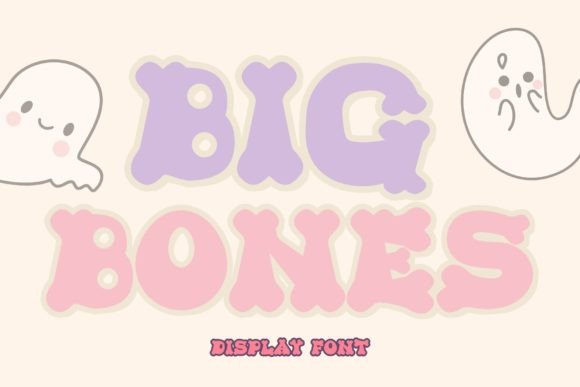
Journey into the realm of spooky and spectacular typography with Big Bones Font, the display font that radiates retro Halloween vibes. This groovy font exudes playfulness and authenticity, making it the perfect partner for crafting captivating visual experiences. Let your creativity run wild and explore a world of possibilities with Big Bones Font.
Unleash your imagination and utilize Big Bones Font to create blog posts that ooze personality, logos that command attention, and branding initiatives that leave a lasting impression. Elevate your advertising campaigns with captivating visuals, design invitations that set the tone for unforgettable gatherings, and craft greeting cards that deliver heartfelt messages with a touch of whimsy.
Dive into the world of journaling and planning with Big Bones Font, transforming your entries into visually stunning works of art. Preserve cherished memories in photo albums adorned with this playful font, adding a touch of nostalgia to your captured moments. Let Big Bones Font inspire you to create enchanting decorations that bring the Halloween spirit to life, leaving your space spellbound.
With Big Bones Font as your creative companion, you'll embark on a typographic adventure like no other. Immerse yourself in a symphony of visual delight as you bring your projects to life, leaving a trail of Halloween magic wherever your designs roam. Embrace the enchanting spirit of Big Bones Font and let your creativity soar to new heights.